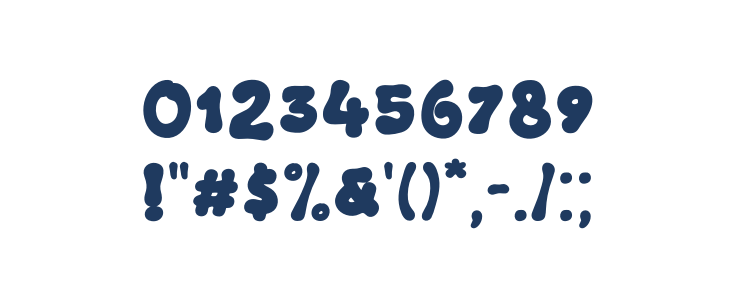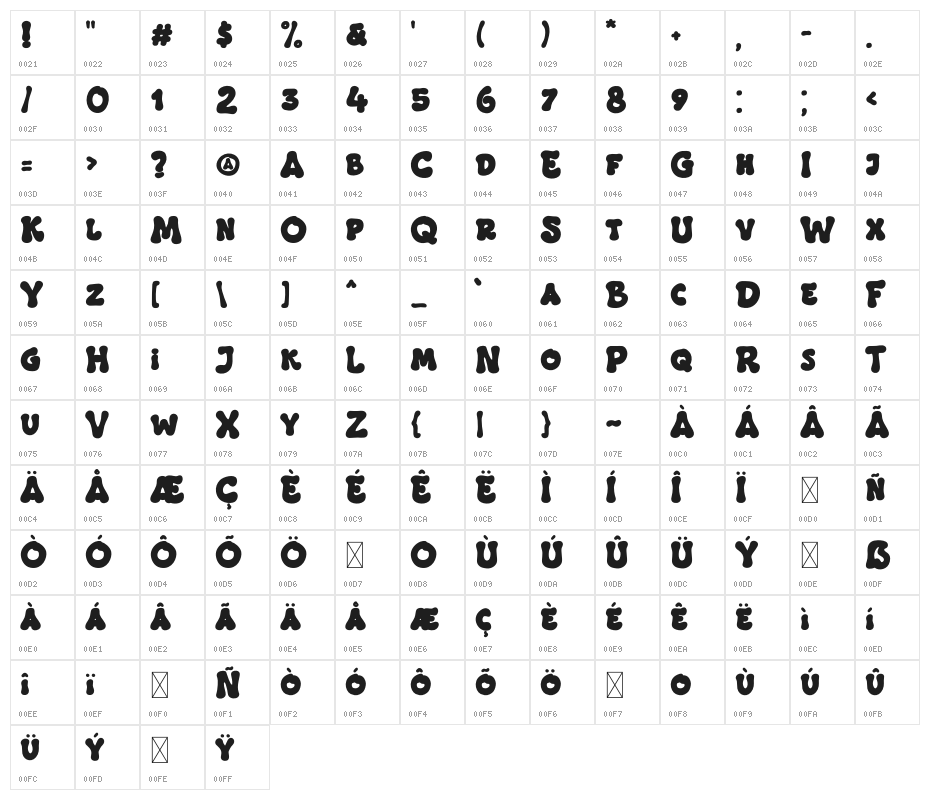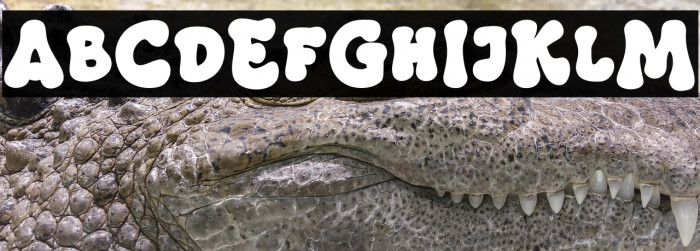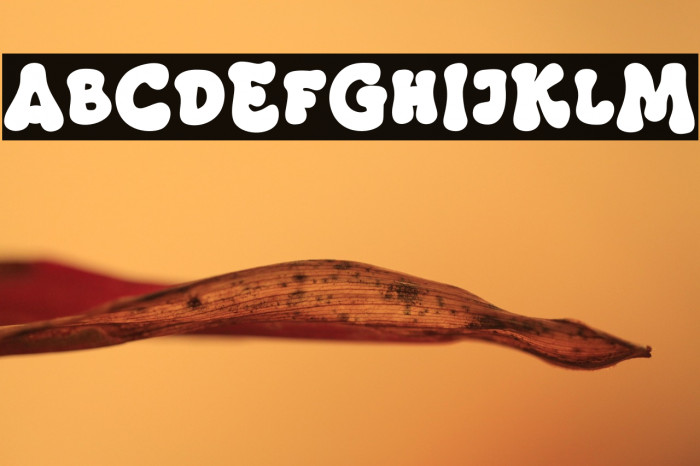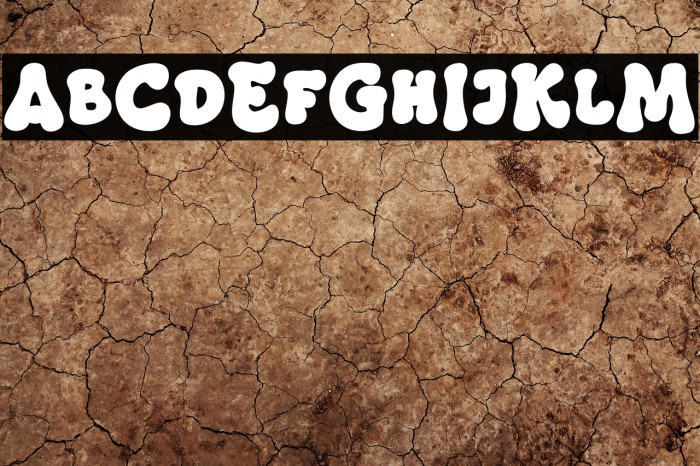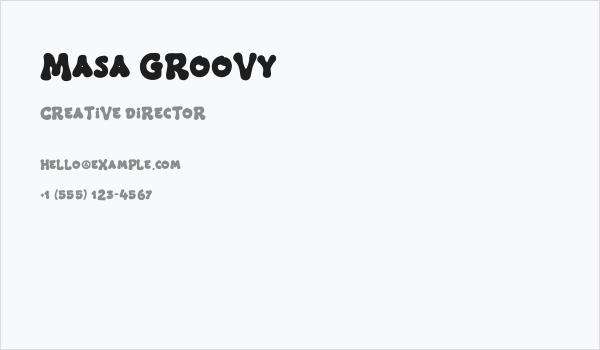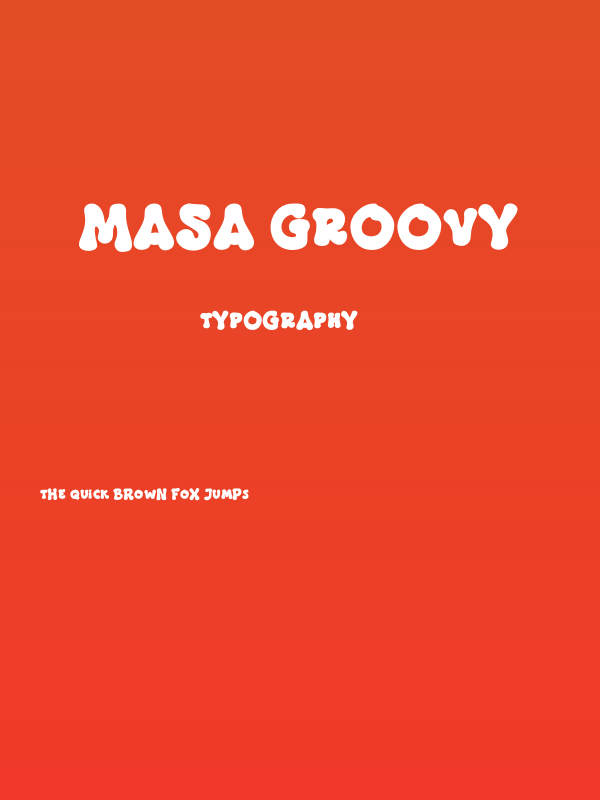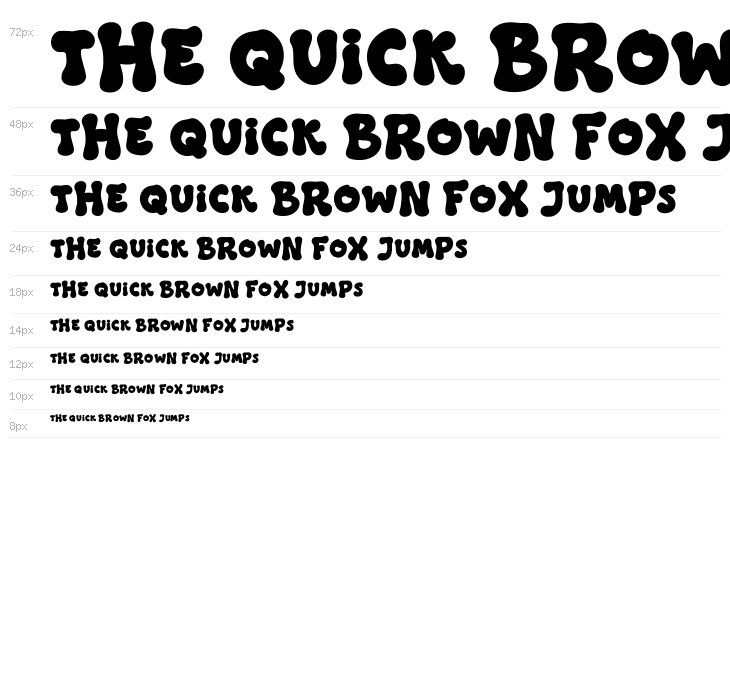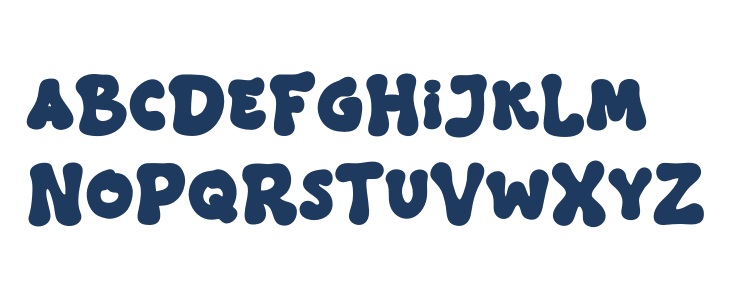
Masa Groovy Font
Masa Groovy Description
This font exudes a playful and bold character, with its thick, rounded strokes and bubbly appearance. The letters are designed with a consistent weight, giving them a cohesive and unified look. The style is reminiscent of retro and psychedelic designs, making it ideal for projects that aim to capture a sense of nostalgia or fun. The characters are evenly spaced, ensuring readability while maintaining their unique, groovy aesthetic. The font's design is both eye-catching and memorable, making it suitable for a variety of creative applications.
| Overall Style | Retro, Playful |
| Proposed Projects | Ideal for posters, album covers, children's books, and branding that seeks a fun, retro aesthetic. |